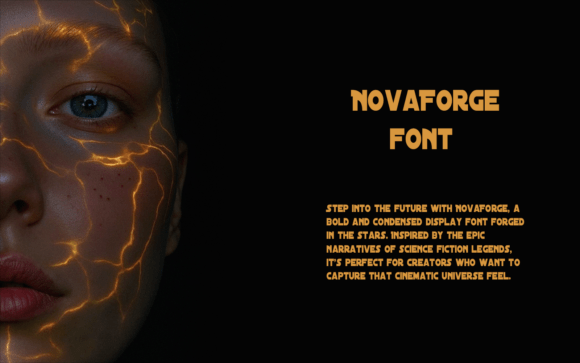
Introduction to Nova Forge Font
๐ Introducing NovaForge โ The Typeface From Another Galaxy.
Step into the future with NovaForge, a bold and condensed display font forged in the stars Inspired by the epic narratives of science fiction legends, itโs perfect for creators who want to capture that cinematic universe feel.
Key Features of Nova Forge Font
Why Choose Nova Forge Font?
Nova Forge Font offers exceptional quality and versatility, making it a valuable addition to your design toolkit. Whether you’re creating for personal projects or commercial use, Nova Forge Font delivers professional results.